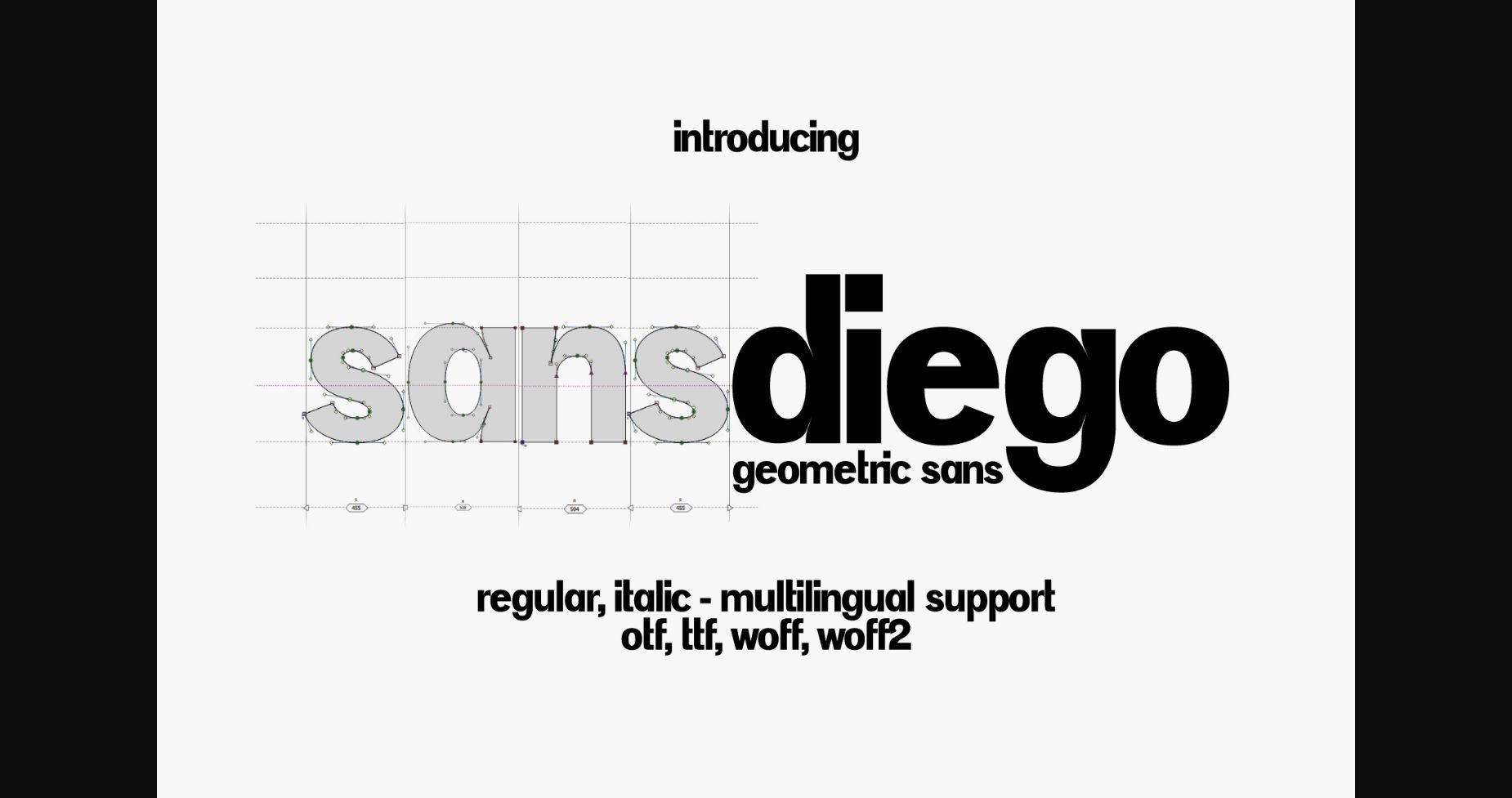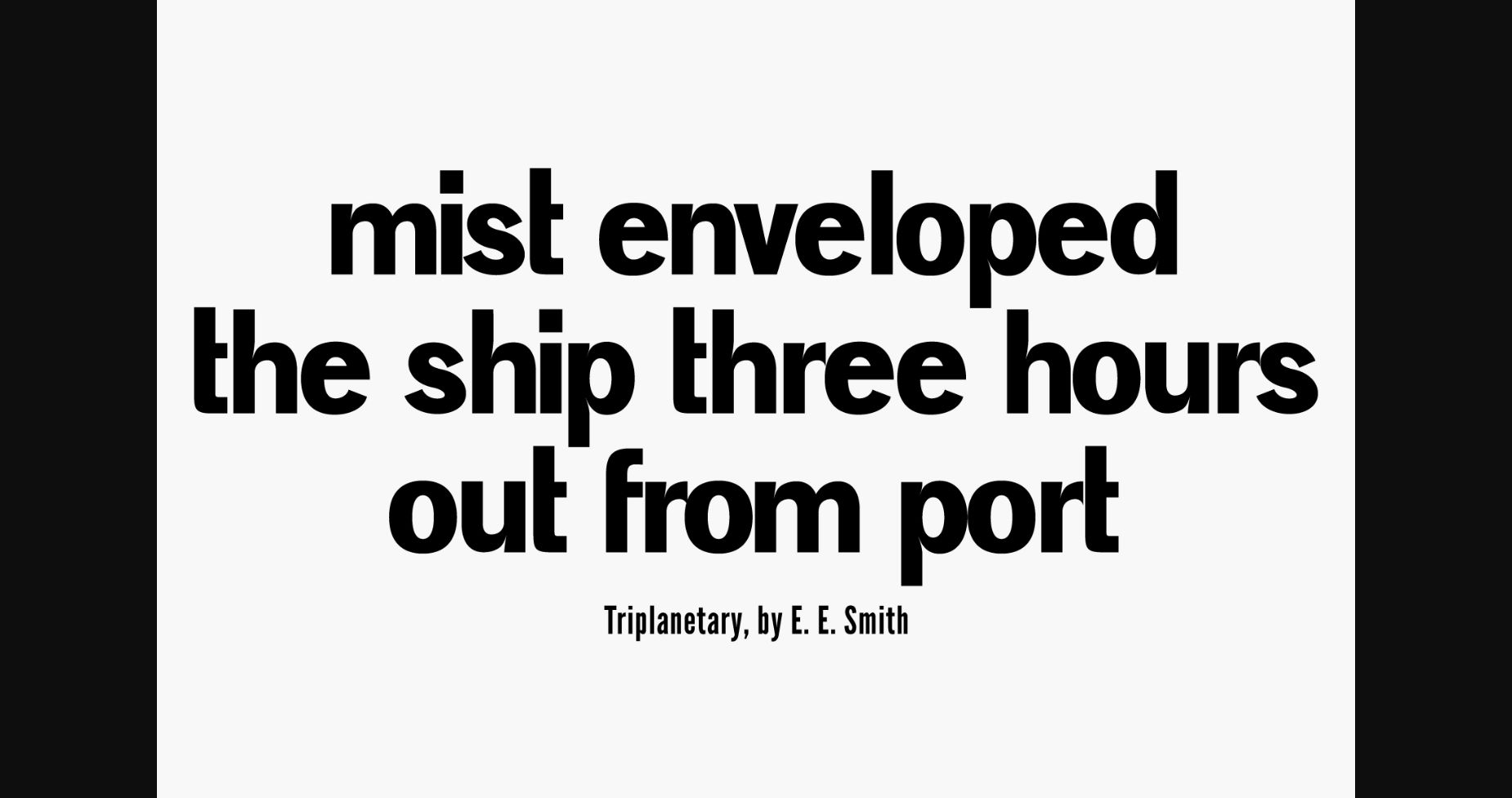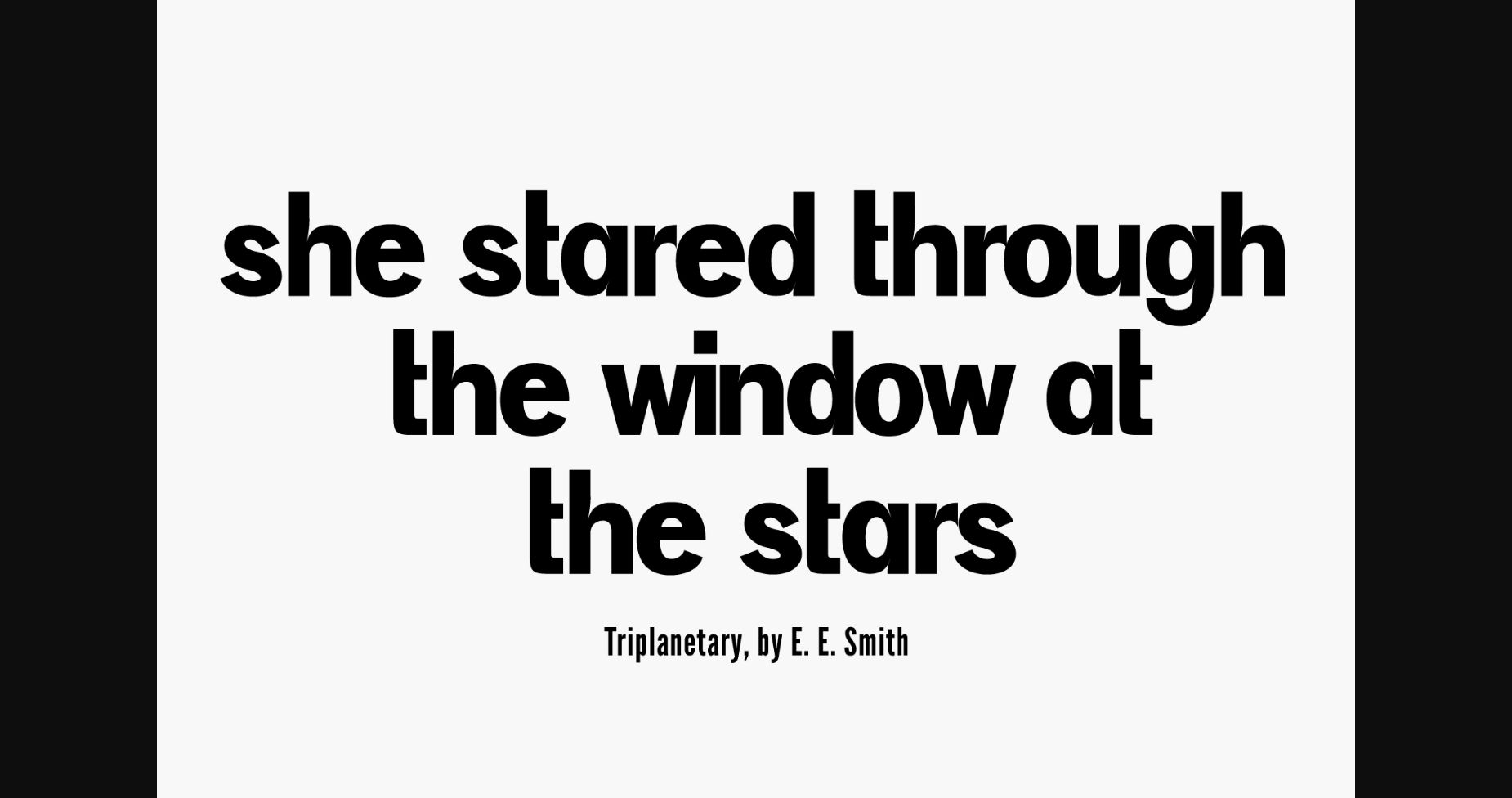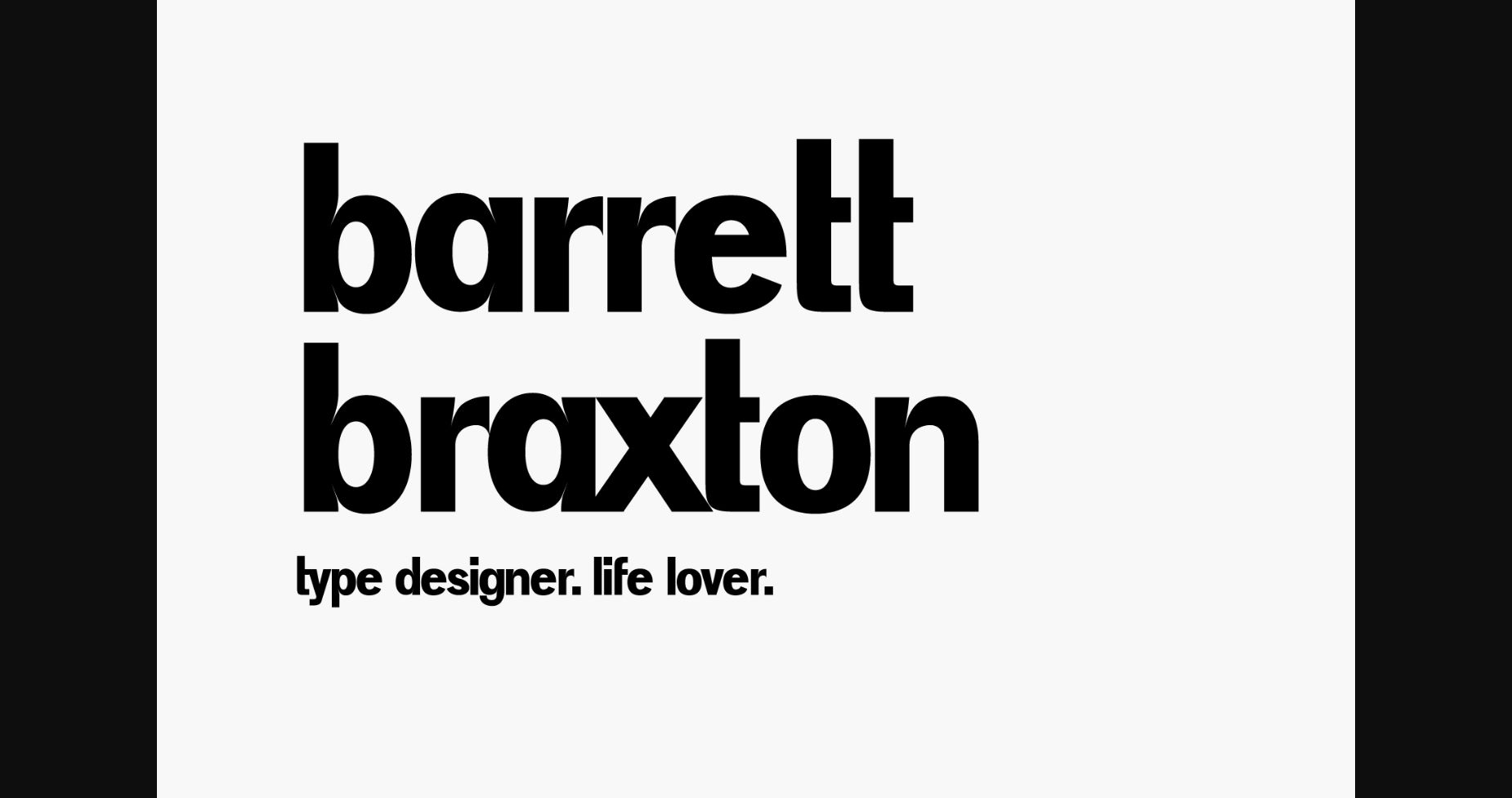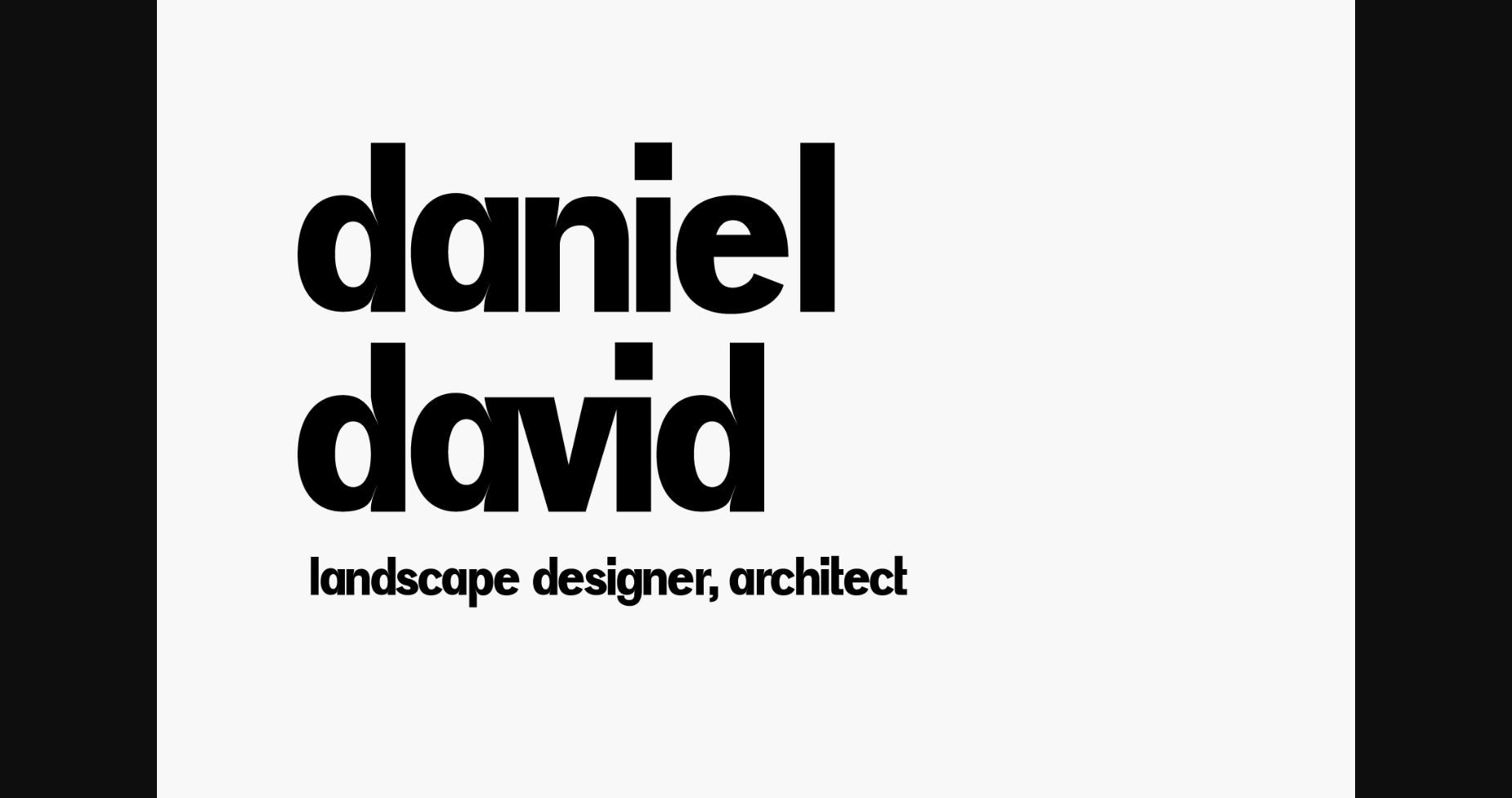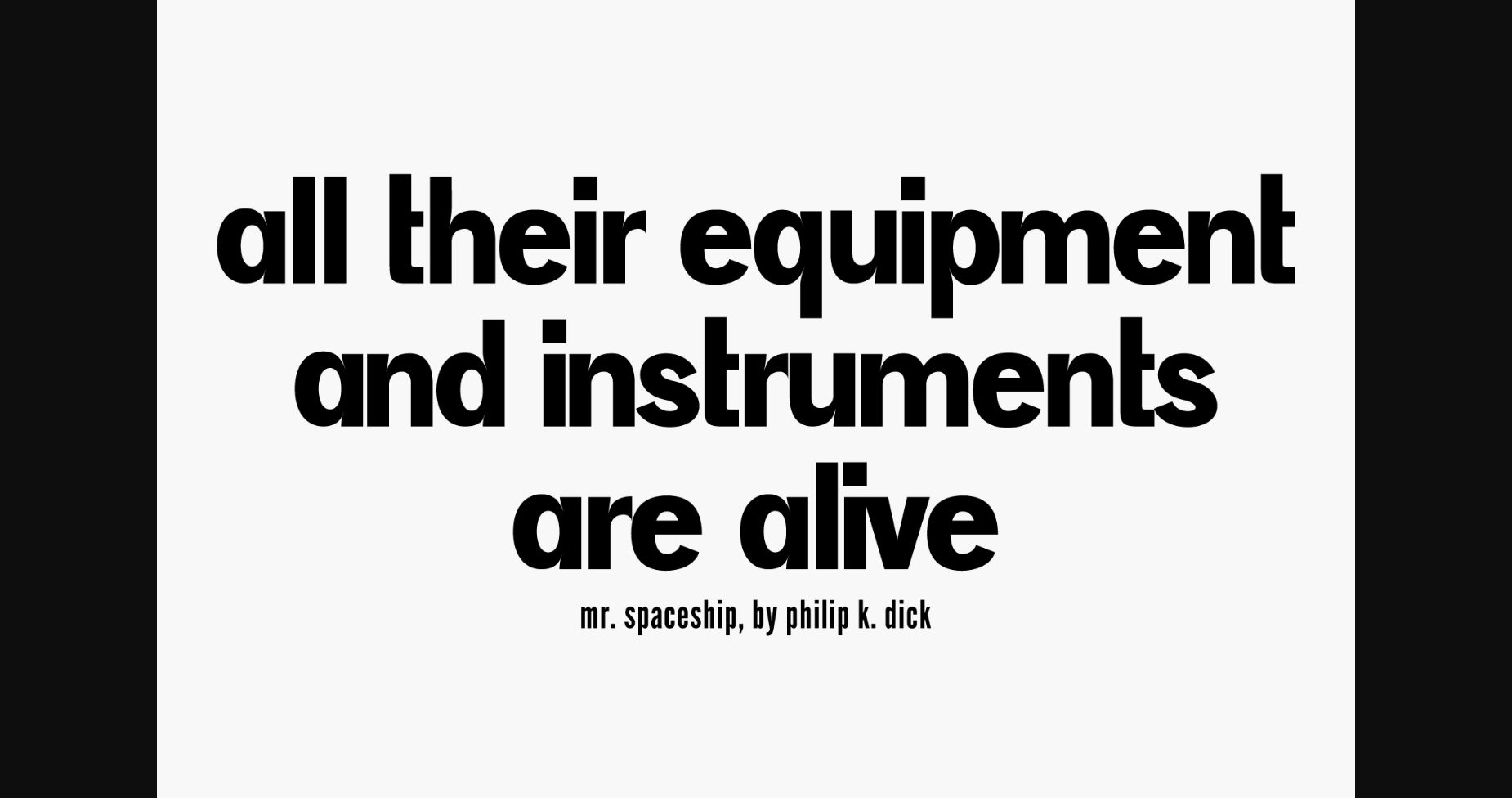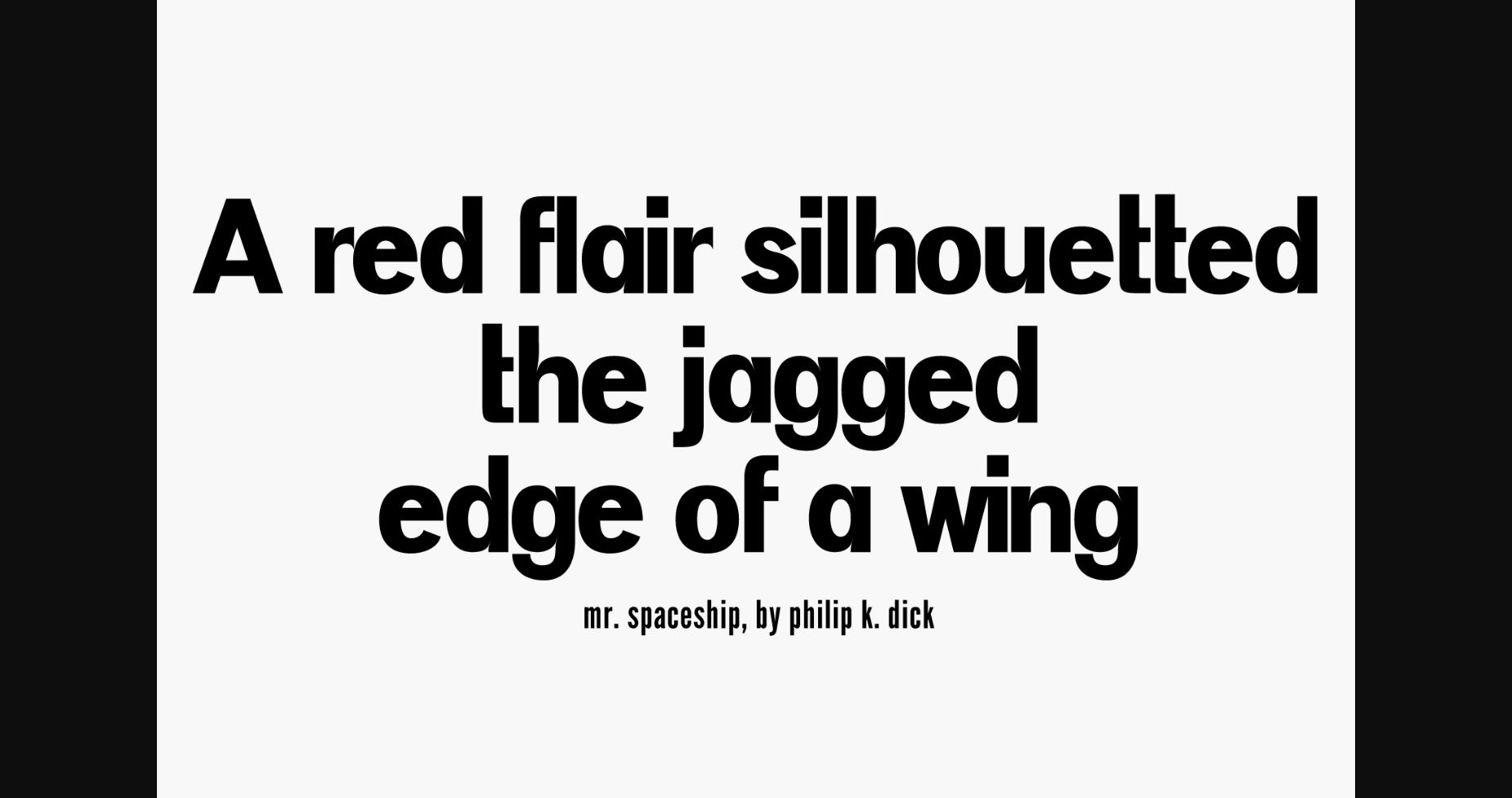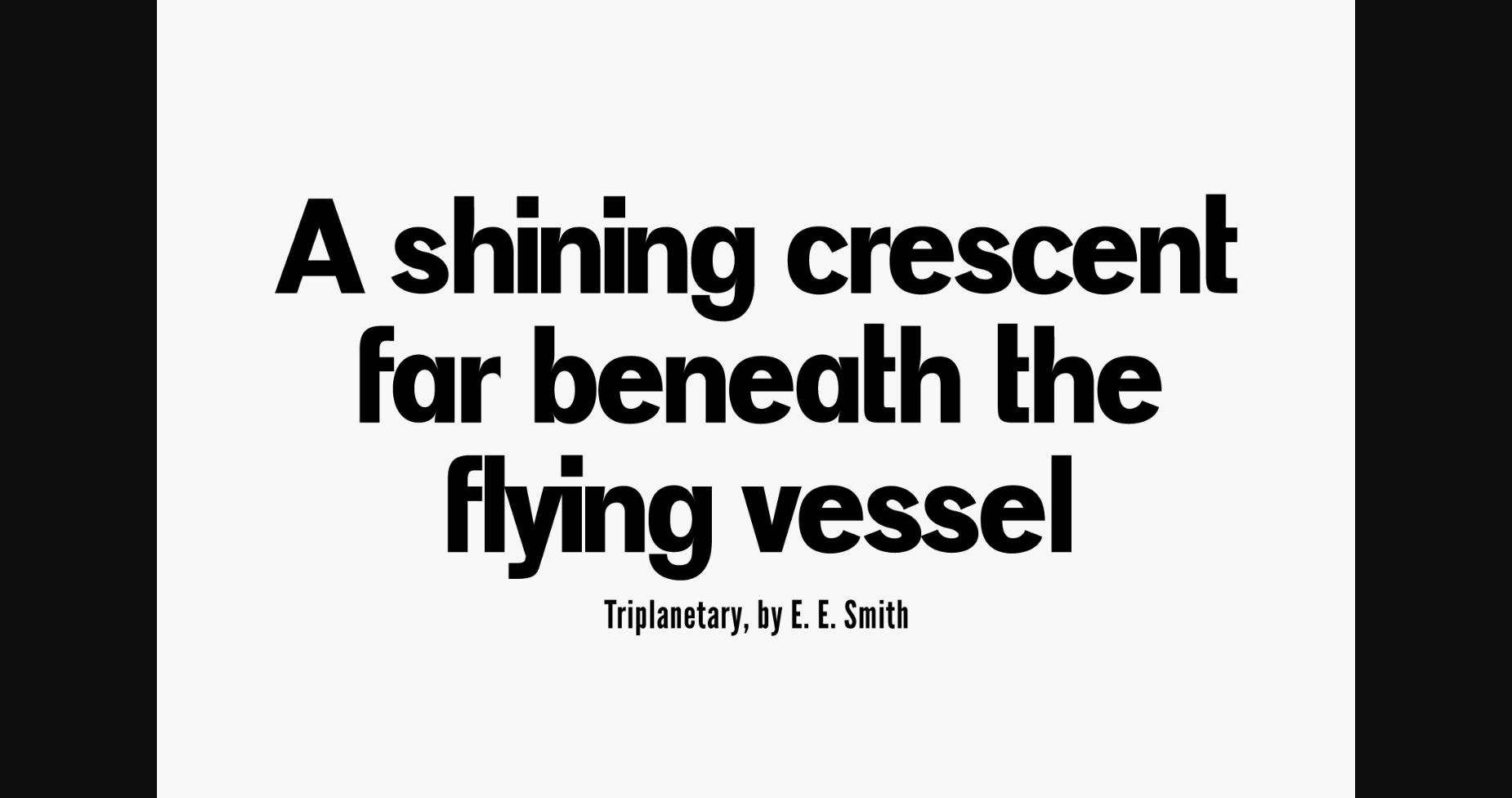
Sansdiego Font
About Sansdiego Font
SansDiego is a sleek, modern, and minimalist sans serif font perfect for body text, headings, websites, magazine layouts, crafts, advertisements, logos, product packaging, signage, and many more. Try SansDiego today and take your design to the next level!